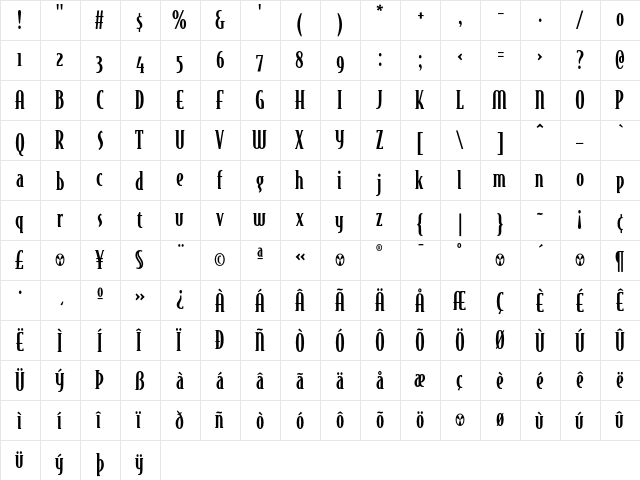
BodegaSerif MediumOldstyle
Design Context for BodegaSerif Typeface
BodegaSerif carries the refined structure of traditional serif typography, with bracketed terminals and considered proportions that communicate credibility and craft.